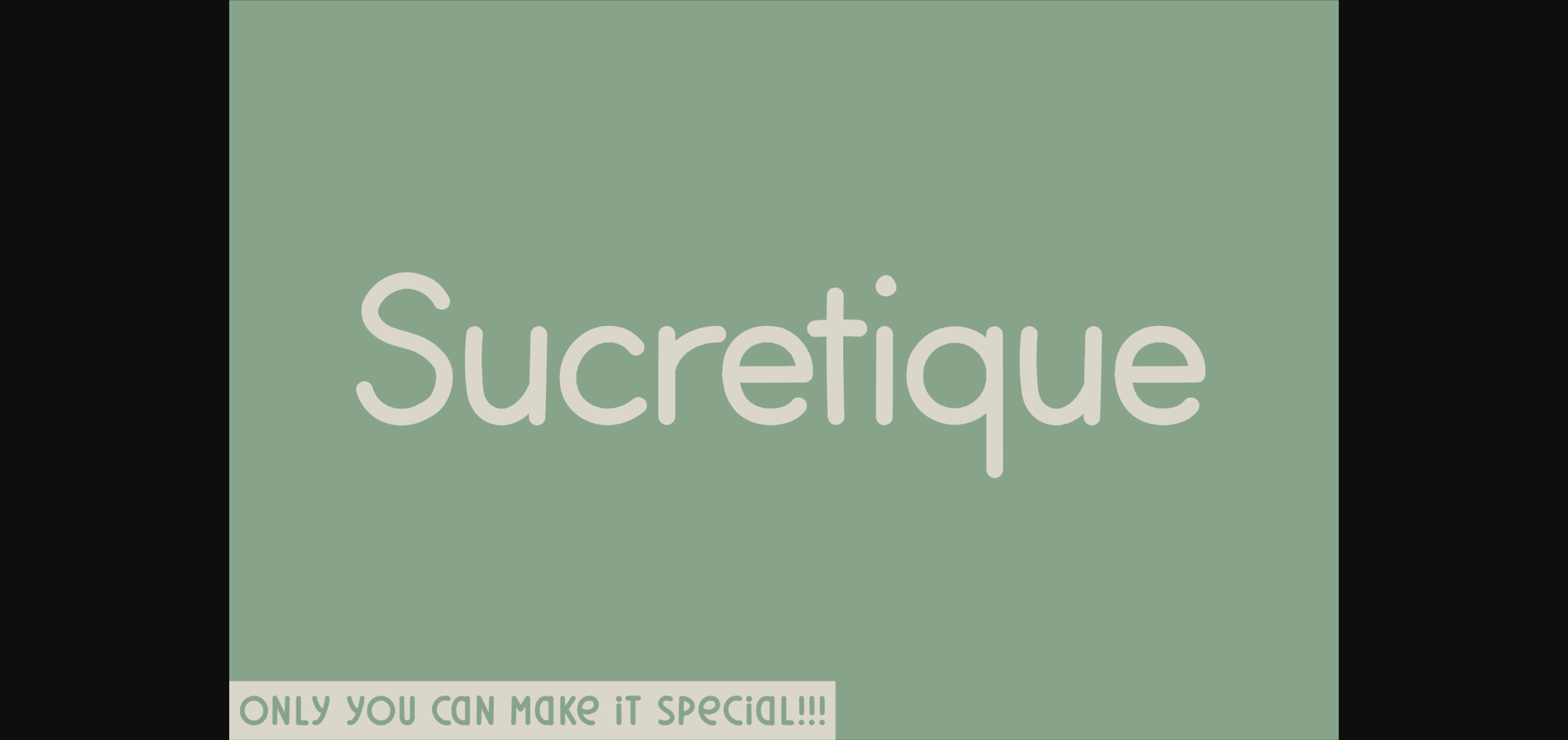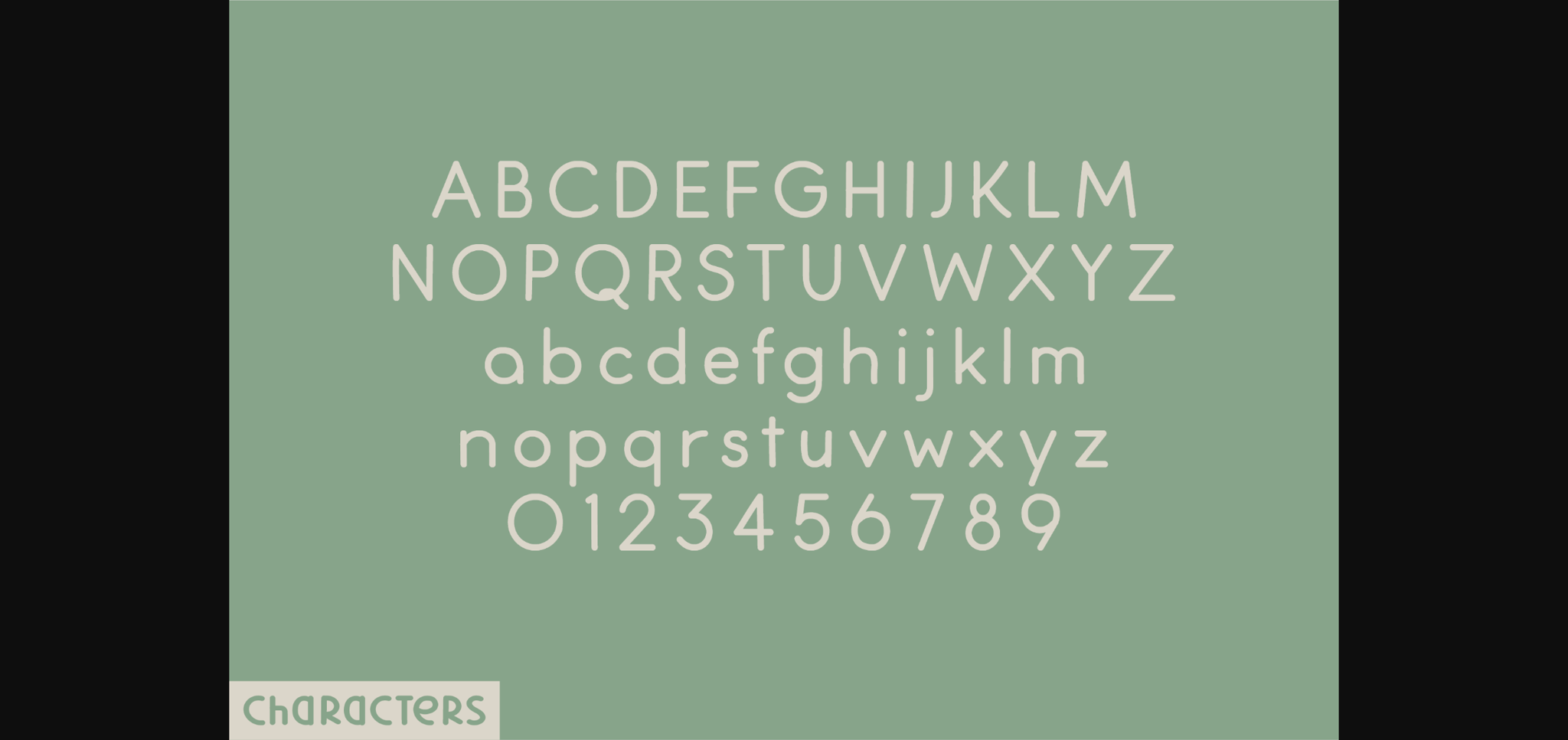
About Sucretique Font
Introducing Sucretique, an immaculate handwritten sans serif font boasting a fine collection of uppercase, lowercase numbers, and functional letters. The distinct uniform termination of each letter in this typeface, fuses harmony and intensity, creating an understated yet resolute impact. Sucretique is a perfect choice for designs demanding a dash of startling uniqueness. This font infuses breathtaking originality while maintaining an air of sophistication and elegance.